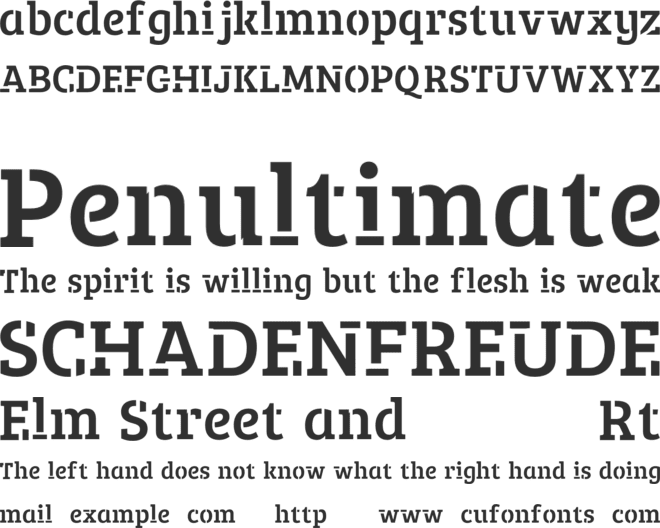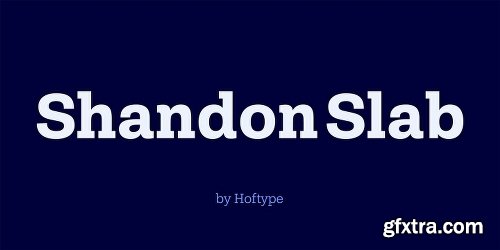
examples of slab serif fonts
Whereas slab serif is the name of the general category there are subgroupings within this typeface that draw attention to the variety and individuality of the slab fonts.
Examples of slab serif fonts. Different groups of slab serifs. When designers use serif fonts. Modern slab serif type. Slab serif typefaces sometimes referred to as egyptians can evoke a wide range of feelingsslabs in the clarendon style can bring to mind the old west while other slabs based on neo grotesque and geometric models can take on a more contemporary feel.
Samples of serif typefaces typeface name example 1 example 2. Slab serif lettering and typefaces appeared rapidly in the early nineteenth century having little in common with previous letterforms. 12 download otf. With the abundant availability of slab serif typeface families in digital form it can be daunting to select just the right one.
This list of samples of serif typefaces details standard serif fonts used in printing classical typesetting and printing. They have their own unique look and feel and would make any project stand out. So ive put together a modern collection of slab serif typefaces some popular some not so popularbut i like them alltake a look at the 10 slab serif fonts below let me know what you think. The fonts shown above each have their own style.
Egyptian slate the egyptian slate typeface family is a recent addition to the slate family both designed by rod mcdonald. Professional designers know the importance of typography. The style is characterized by thick block like serifs often as wide as the vertical lines. Here is a survey of seven of the most useful and well designed slab serifs.
Slab serif appeared in the early 1800s.